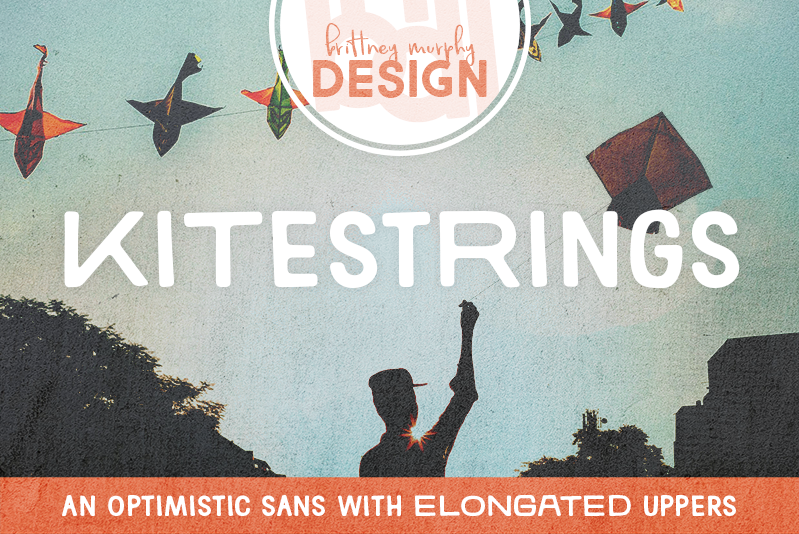
Kitestrings is a cozy all-caps sans font family with elongated uppercase letters so you can mix and match as you please to create text with that custom, variable width style. - - - Free for PERSONAL USE ONLY. Do not redistribute. For the full version or for commercial use, please purchase a license: https://www.brittneymurphydesign.com/downloads/kitestrings-font-family/ |